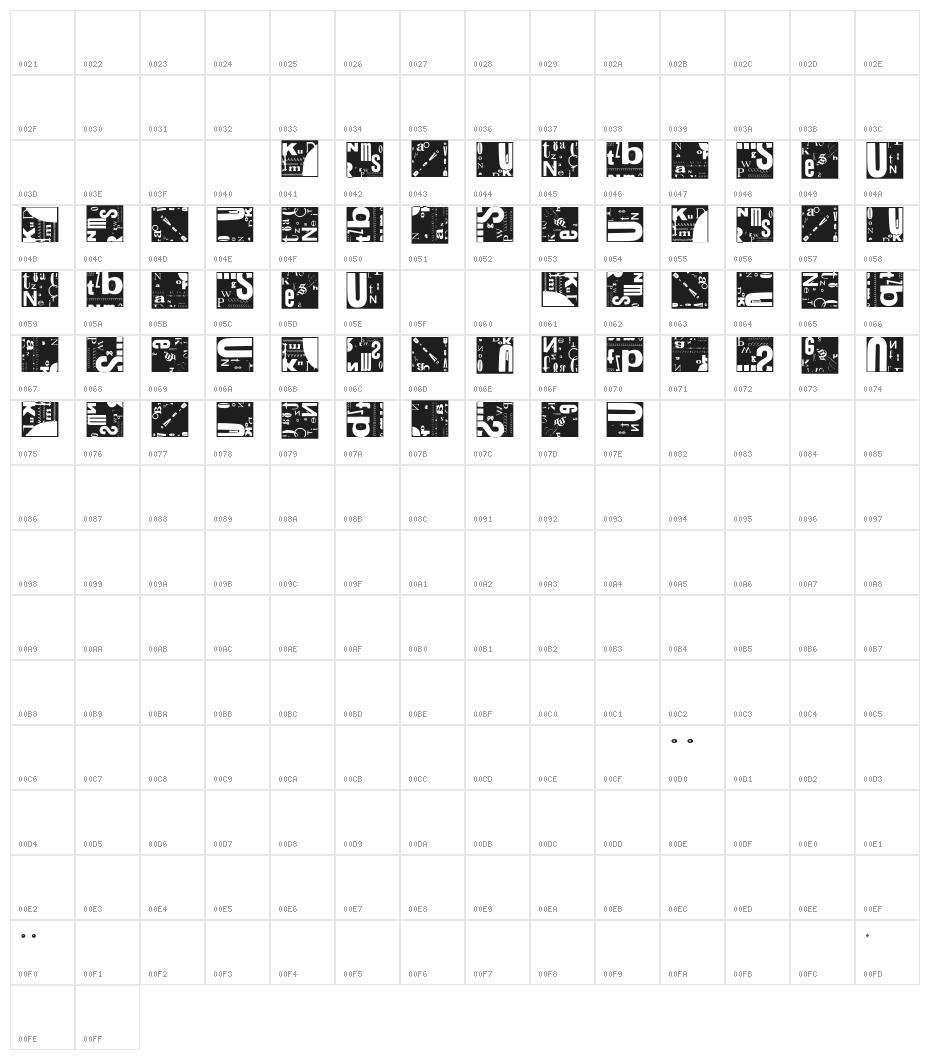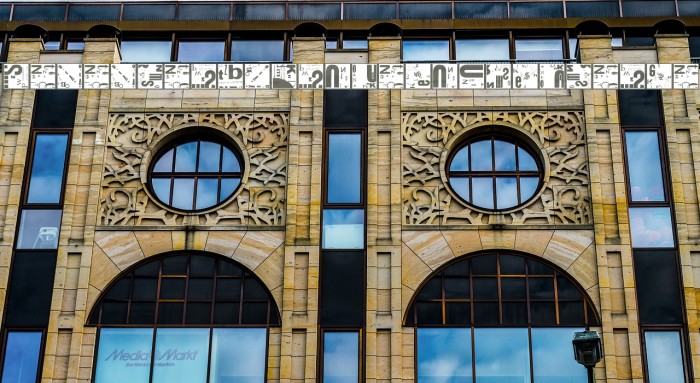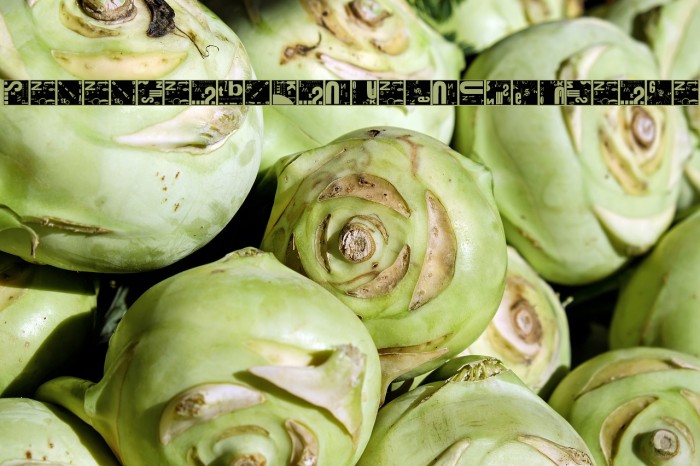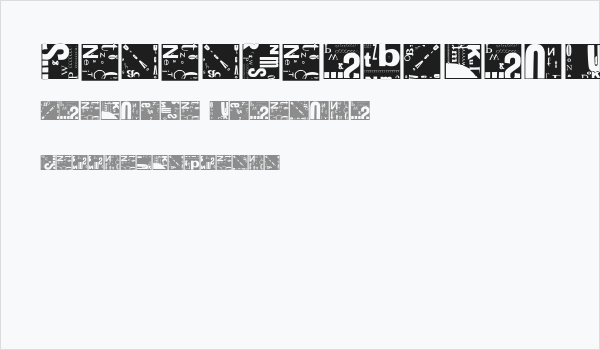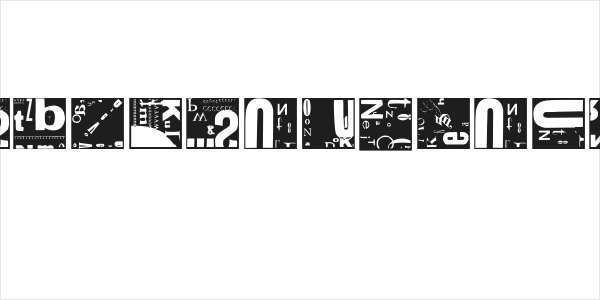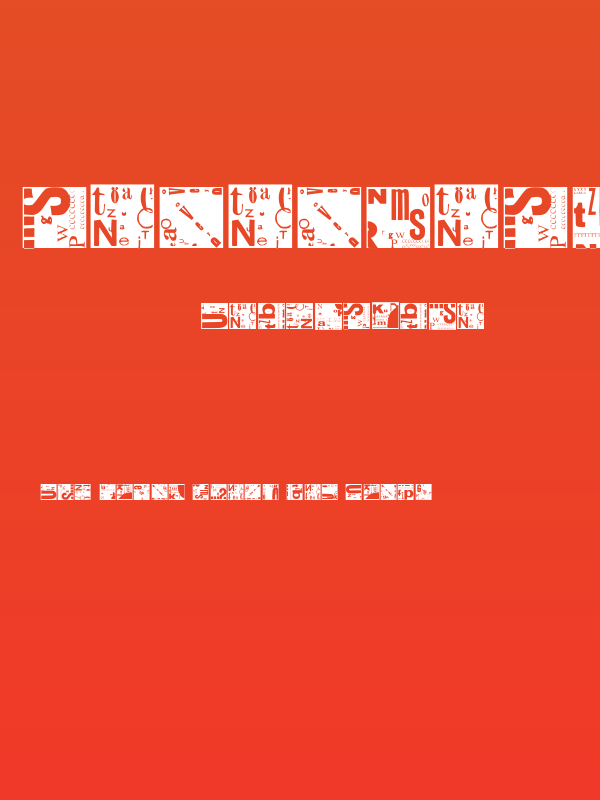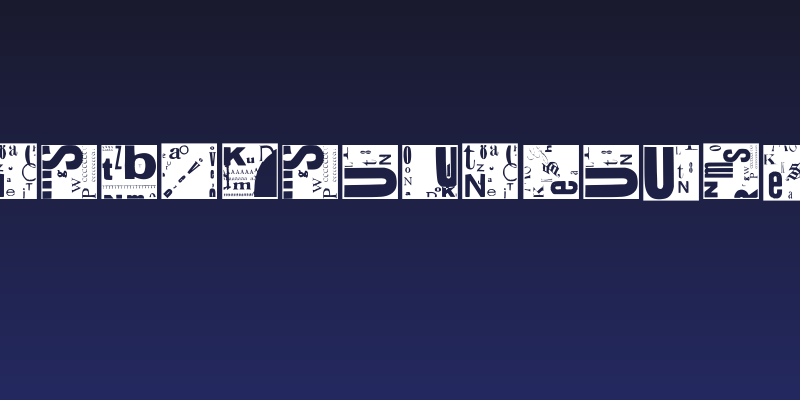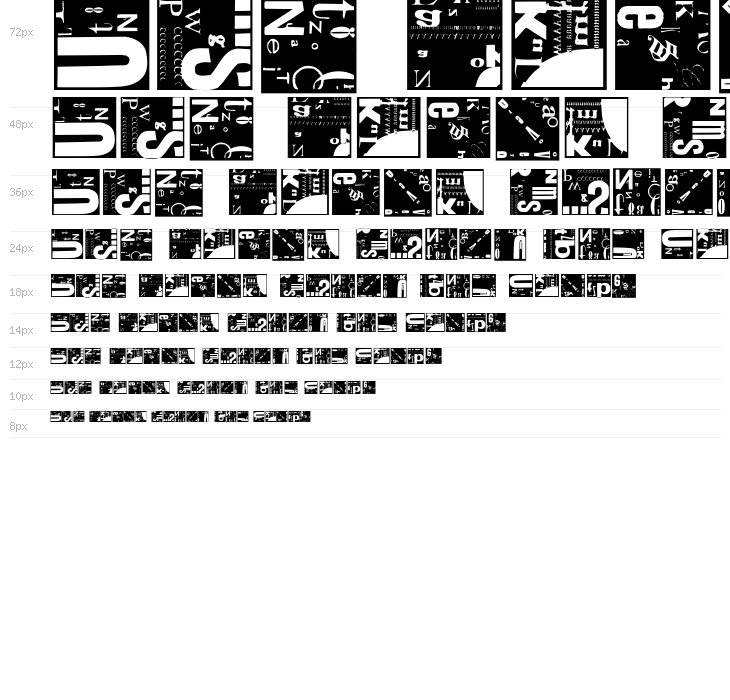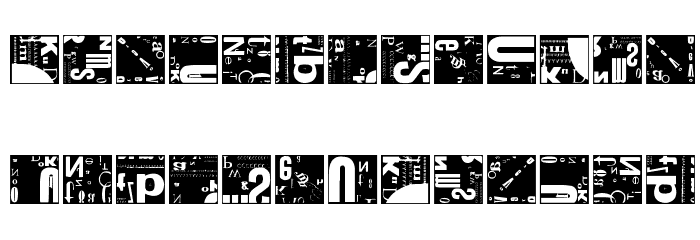
RememberZwartDeStjl-Inverse Font
RememberZwartDeStjl-Inverse Description
This font is a highly decorative and artistic typeface that draws inspiration from the De Stijl art movement. It features a unique combination of geometric shapes and abstract forms, creating a visually striking and avant-garde appearance. Each character is crafted with intricate details, incorporating elements such as lines, dots, and angles that contribute to its dynamic and modern aesthetic. The font's design is bold and unconventional, making it ideal for projects that seek to make a strong visual impact. Its artistic nature allows for creative expression, while maintaining a sense of structure and order reminiscent of the De Stijl style.
Overall StyleModern, Artistic, Avant-Garde
Proposed ProjectsIdeal for art posters, modern branding, avant-garde publications, and creative design projects.